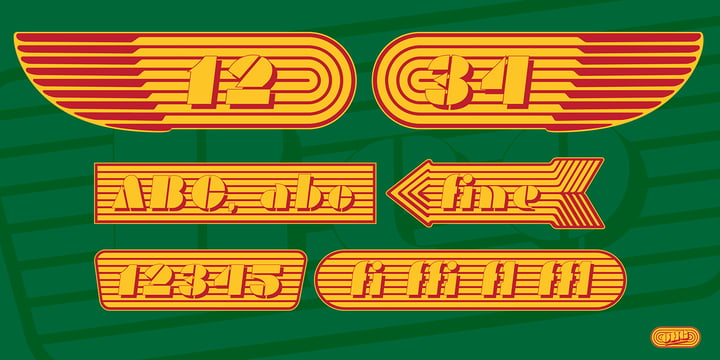
The Reo Font Family was designed by Russell A. McGorman and published by Our House Graphics. Reo contains 2 styles and family package options. More about this family
Reo is a novel two layered, display font with a decidedly retro look and feel, inspired by the toothy grins of 1930�s and 40�s era truck grilles and the gleaming, streamlined efficiency of the automat. Reo Front (Foreground) is where all the detail resides, and Reo Back provides a background layer.
Designers: Russell A. McGorman
Foundry: Our House Graphics
Reo